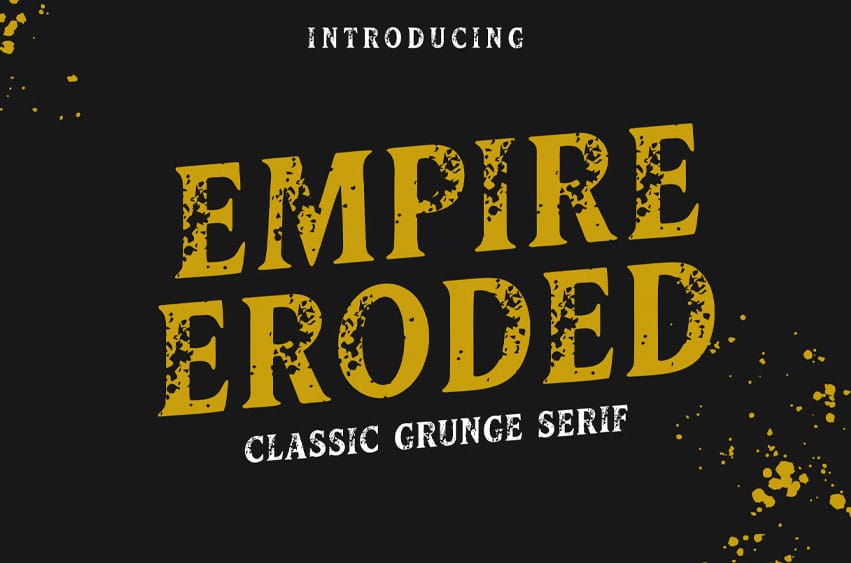
Empire Eroded Font is a bold vintage serif font with a unique blend of classic charm and modern character. Inspired by retro typography with subtle curves and aged textures, this font is ideal for nostalgic designs, posters, branding, editorial layouts, and lifestyle content.
Its strong personality makes it perfect for standing out while still maintaining an elegant presence.